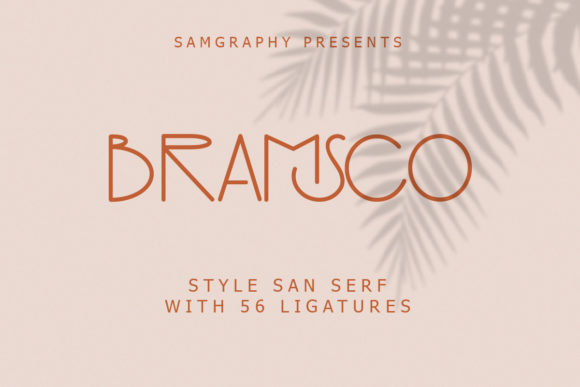
The Designer’s Delight: A Deep Dive into Bramsco Font
I’ll never forget the moment I stumbled upon Bramsco Font while working on a branding project for a luxury client. I had spent hours scouring the internet for the perfect sans serif font, but nothing seemed quite right. That was until I laid eyes on Bramsco – its clean lines, delicate curves, and stylish charm instantly won me over. In this article, I’ll share my love affair with Bramsco, its features, and how to make the most of it in your designs.
An Honest Review of Bramsco Font
What I Love About Bramsco ✨
• ✅ Clean and delicate design: Bramsco’s sans serif structure makes it perfect for projects that require a touch of elegance and sophistication.
• ✅ Classy calligraphic influences: The font’s subtle curves and lines evoke a sense of luxury and refinement.
• ✅ Contemporary and fresh feel: Despite its classic influences, Bramsco feels modern and on-trend, making it suitable for a wide range of projects.
• ✅ High versatility: Bramsco can be used for everything from branding and advertising to packaging and digital media.
While Bramsco is an exceptional font, there are a few things to keep in mind:
• 🤔 Limited use in very small sizes: Due to its delicate design, Bramsco may not be the best choice for very small font sizes or low-resolution applications.
• 🤔 Not ideal for body text: While Bramsco is beautiful, its elegant design makes it better suited for headlines, titles, and short paragraphs rather than lengthy blocks of text.
The Story Behind Bramsco Font
Bramsco was designed with the intention of creating a font that would evoke a sense of luxury and refinement. Its creator drew inspiration from classic calligraphy and elegant sans serif fonts, aiming to craft a font that would feel both contemporary and timeless.
Q: What makes Bramsco Font unique?
A: Bramsco’s unique blend of clean lines, delicate curves, and classy calligraphic influences sets it apart from other sans serif fonts.
Q: Is Bramsco suitable for body text?
A: While Bramsco is beautiful, its elegant design makes it better suited for headlines, titles, and short paragraphs rather than lengthy blocks of text.